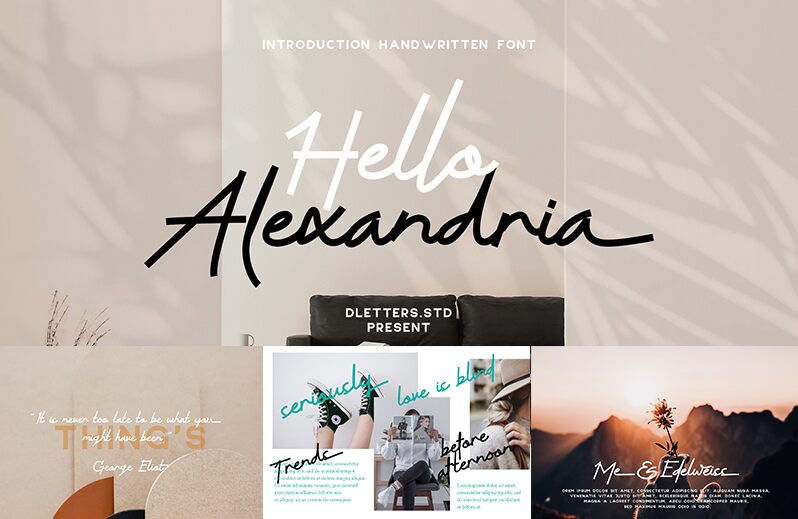
Hello Alexandria, the charming creation by DLetters.Std, is a captivating handwritten font with a semi-light weight. This font adds a touch of elegance and sophistication to any project it graces. Its fluid strokes and delicate curves make it perfect for wedding invitations, romantic novels, or beauty blogs. With its unique blend of playfulness and refinement, Hello Alexandria also shines in children's books, greeting cards, and social media posts. Let this graceful typeface breathe life into your designs as it effortlessly captivates hearts while conveying your message with style.
Hello Alexandria